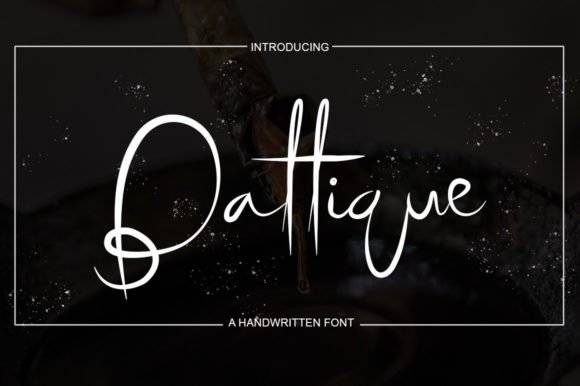
The Perfect Touch: Introducing Battique Font
Have you ever been working on a design project, pouring your heart and soul into it, and just can’t seem to find that one missing element to make it truly stand out? You know, that special something that takes your design from good to great? For designers, this moment is all too familiar, and it’s exactly what the Battique Font is designed to solve.
Battique Font is a stunning, high-quality handwritten font that’s perfect for adding a personal touch to your packaging, labels, flyers, posters, and more. With its beautiful, flowing script, this font is sure to elevate any design and make it truly unforgettable. Whether you’re a seasoned pro or just starting out, the Battique Font is a valuable addition to your design toolkit.
Battique Font Key Features
- Unique Characteristics: Battique Font features a unique blend of modern and vintage elements, with intricate details and ornate flourishes.
- Script and Language Support: The font includes support for Latin, Cyrillic, and Greek scripts, as well as a range of languages, making it a versatile choice for global designs.
- Kerning and Ligatures: Battique Font includes carefully crafted kerning pairs and ligatures to ensure smooth text rendering and a professional appearance.
Battique Font Review
I recently had the chance to work with the Battique Font, and I must say it’s a unique and intriguing addition to any design project. Here’s my honest review.
- Hand-drawn feel: The Battique Font has a distinct, hand-drawn aesthetic that adds a touch of whimsy and personality to any text.
- Customizable: With a wide range of styles and sizes available, the Battique Font can be easily tailored to fit your specific design needs.
- Pairing potential: The Battique Font pairs well with a variety of other fonts, making it a great choice for designers looking to add some visual interest to their projects.
- Readability: While the Battique Font is visually appealing, its readability can be a concern in certain contexts, particularly in smaller font sizes or when used for large blocks of text.
- Limited character set: The Battique Font may not include a comprehensive character set, which could be a limitation for designers working with non-Latin scripts or requiring specific characters.
Overall, I’d say the Battique Font is a solid choice for designers looking to add some visual flair to their projects. While it may not be suitable for every situation, it’s definitely worth considering when you need a unique and eye-catching font.
Getting the Most Out of Battique Font
Alternatives to Battique Font
Great Vibes Font is a modern calligraphy font that is ideal for creating elegant and sophisticated designs. It is suitable for use in wedding invitations, branding materials, and other high-end designs. Great Vibes Font has a similar flair to Battique Font but is more refined and elegant. It is also more versatile and can be used in a wider range of designs.
Alex Brush Font is a beautiful script font that is perfect for creating unique and creative designs. It is ideal for use in branding materials, logos, and other designs where a personal touch is desired. Alex Brush Font has a similar handwritten feel to Battique Font but is more fluid and dynamic. It is also more suitable for use in digital designs.